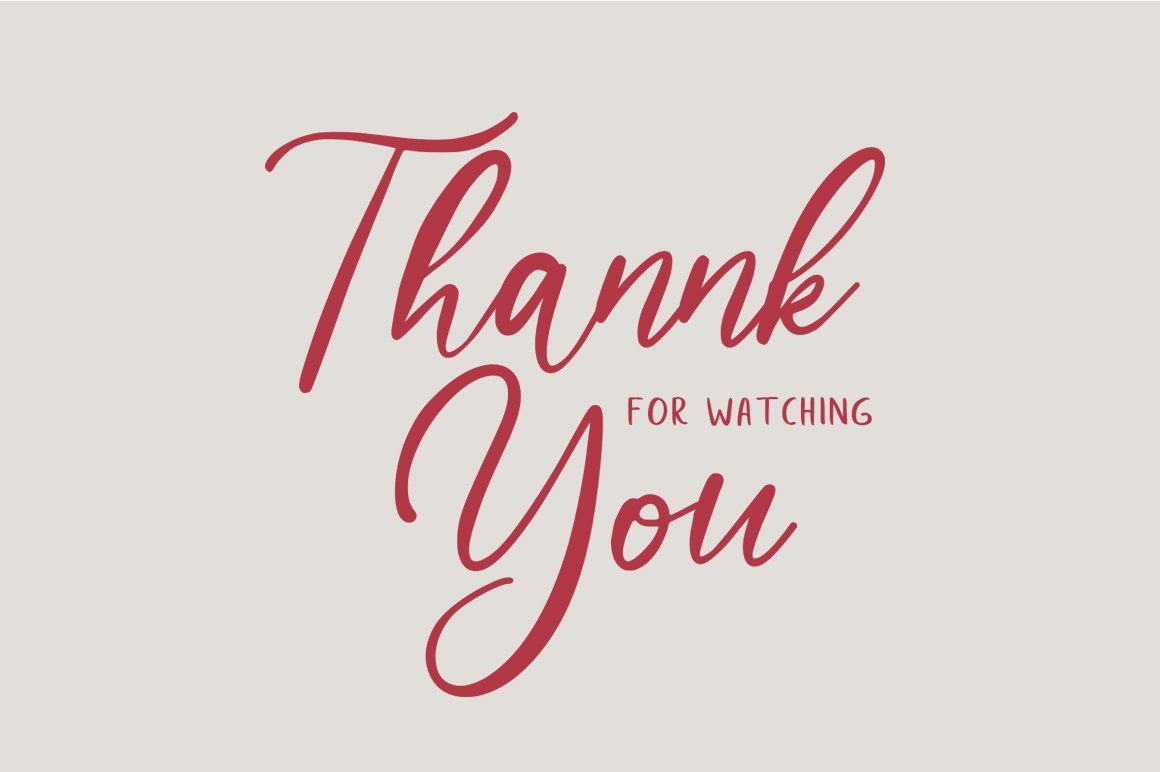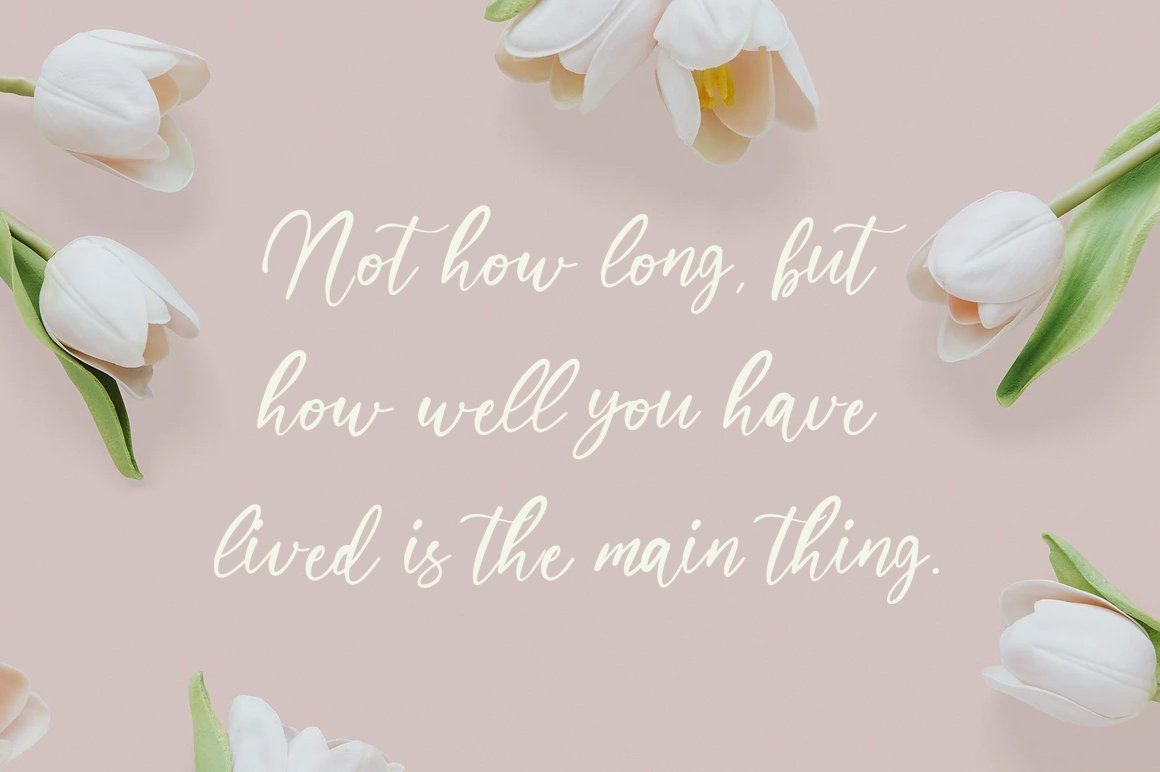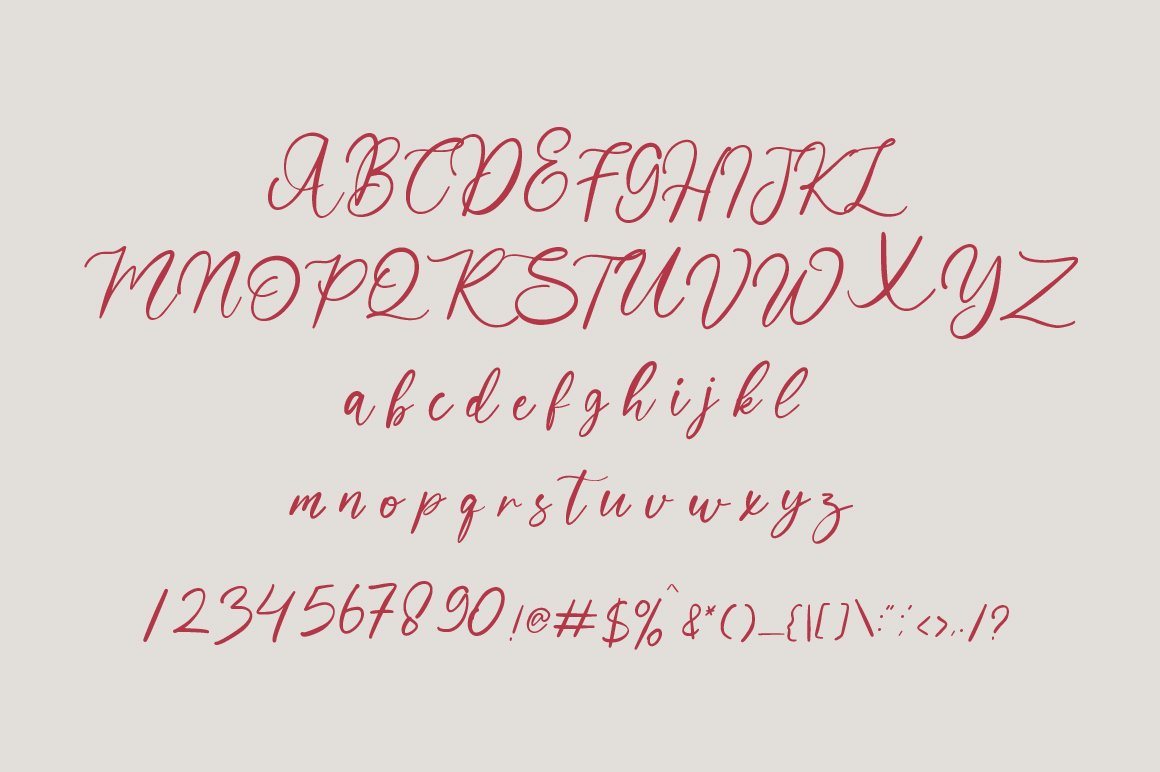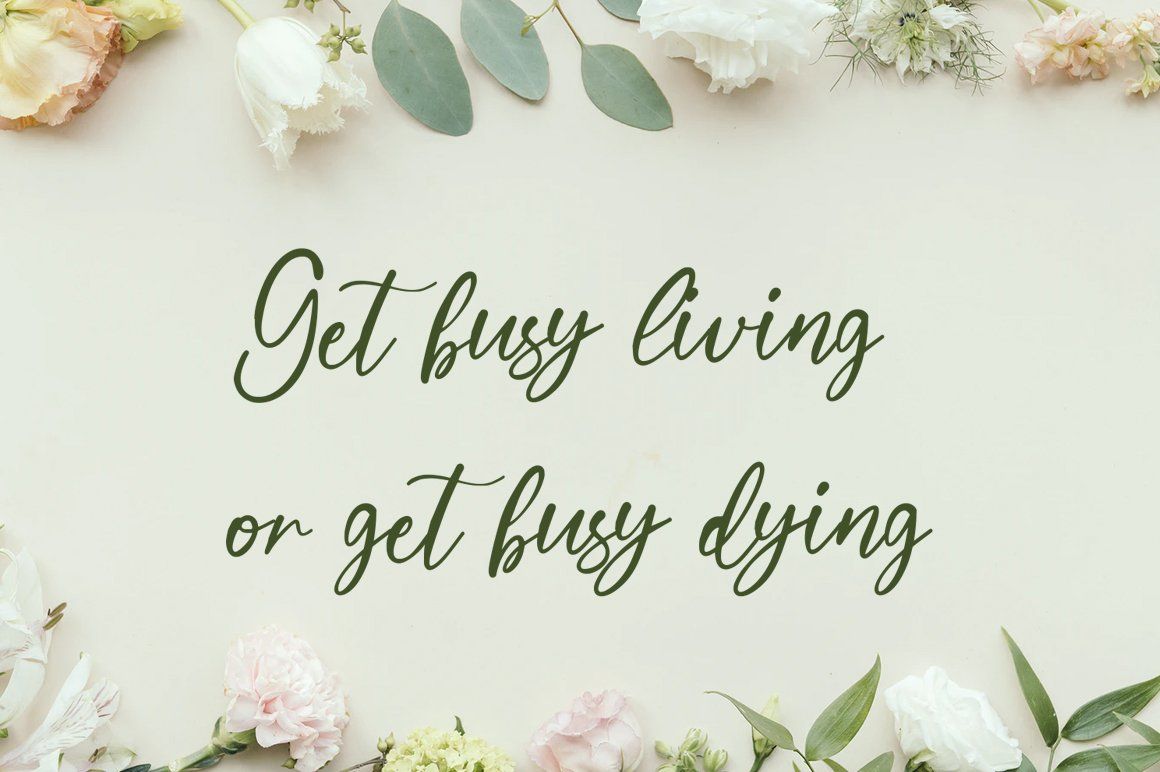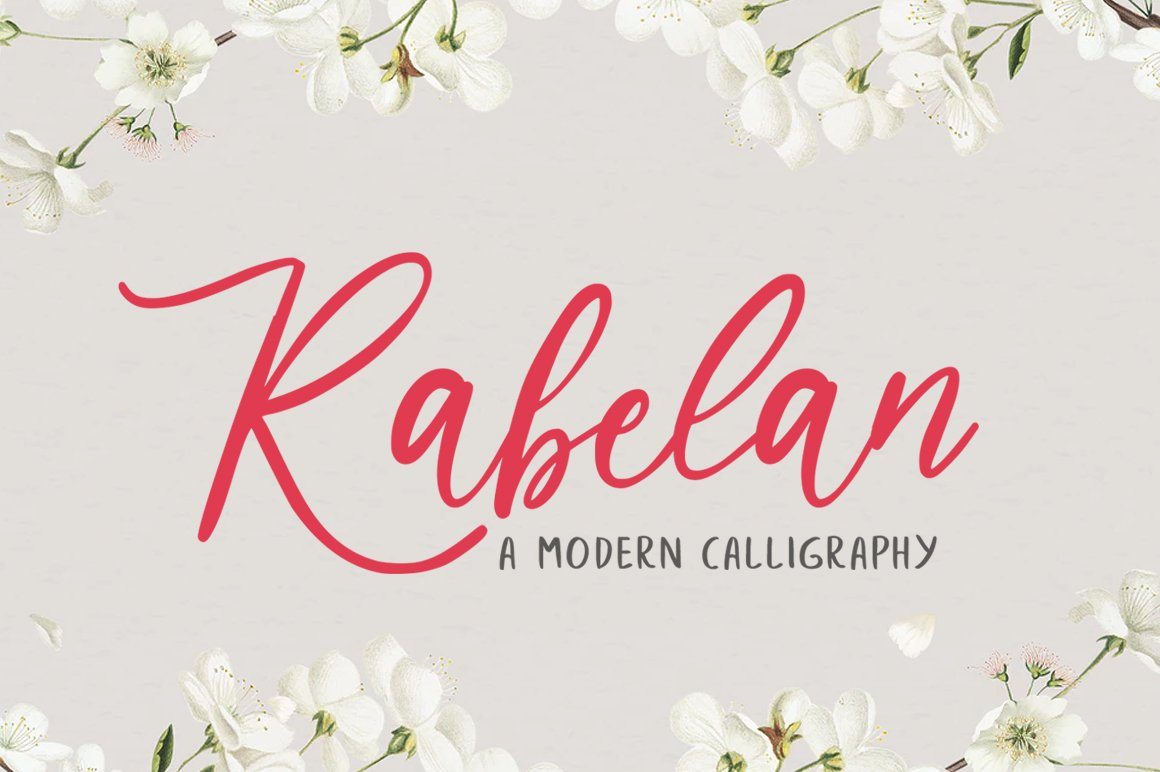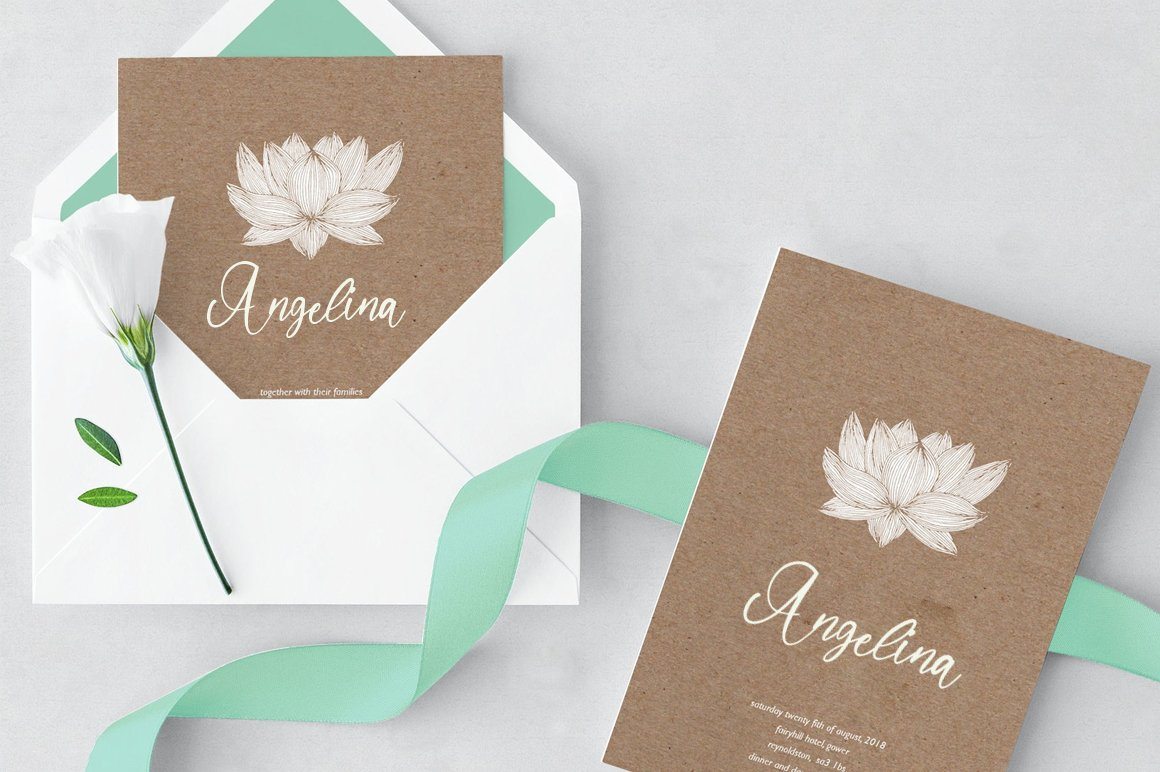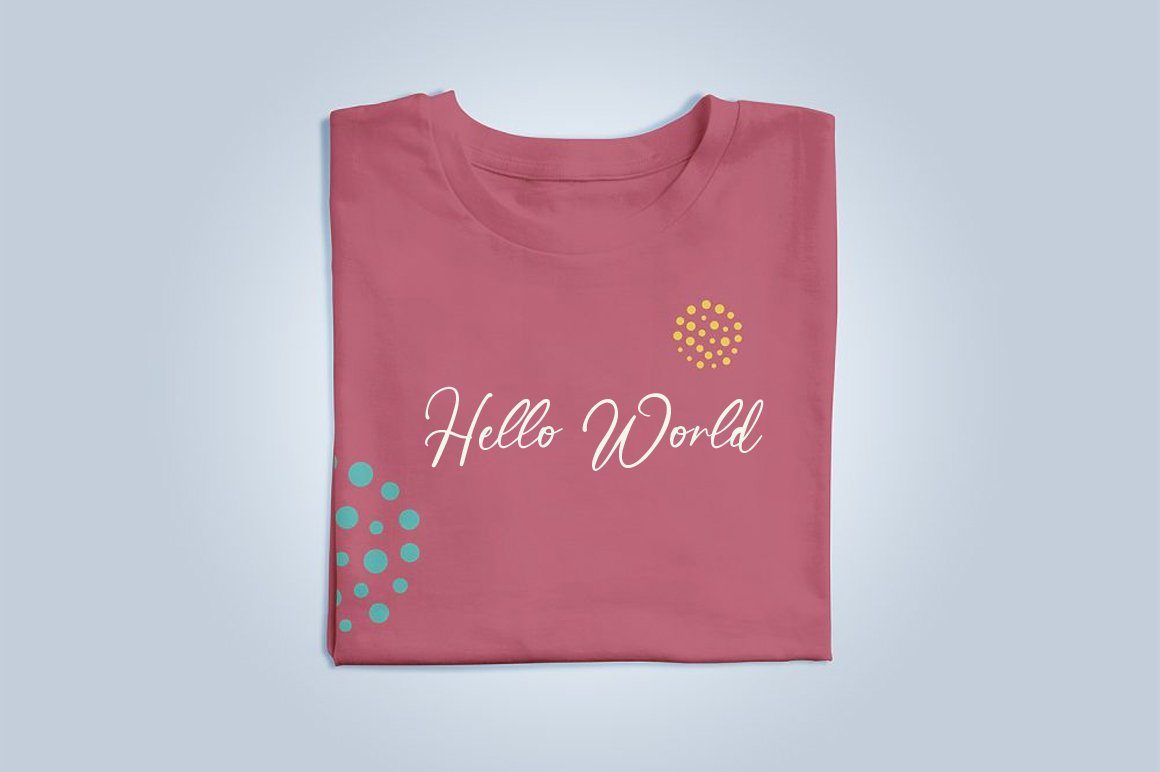
Rabelan – Modern Calligraphy Font
About Rabelan – Modern Calligraphy Font
Rabelan Font is script with beautiful ligature and alternate font.inspired by a luxury fashion. ready to add unique look and bloom on your design Suitable for Photography, Wedding Invitation, Restaurant Menu or T-shirt Design. For Flyers, Banner Ads, web and printing. From Food and Fashion to a Cosmetics Features : OTF + TTF files Web font file (.WOFF) Upper + Lowercase Letters Numbers + Punctuation Ligature Feature OpenType features Multilingual support Cheers ! Vultype Co